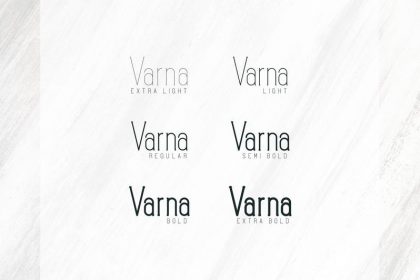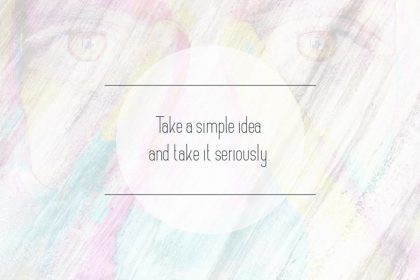
Varna – Slab Serif Font Family is clean, tall typeface with 6 fonts and multilingual support. It’s a very versatile font that works great in large and small sizes.
Varna is perfect for branding projects, home-ware designs, product packaging, magazine headers – or simply as a stylish text overlay to any background image.
- Uppercase,lowercase,numeral,punctuation & Symbol
- Multilingual
- 6 font weights